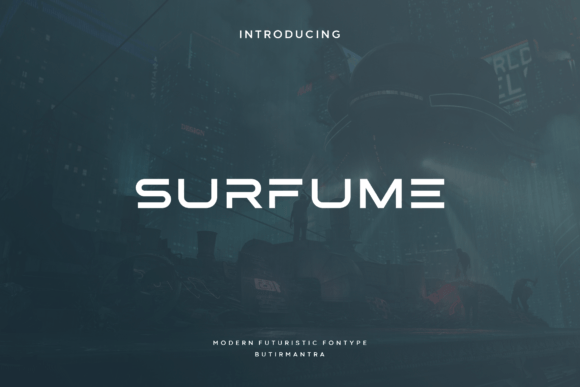
Introducing Surfume Font, a captivating and futuristic typeface that will transport your designs into the realm of science fiction. Crafted by the talented garismantra, this sans serif gem is the perfect choice for those seeking the best fonts for movie posters and beyond.
Surfume Font exudes a minimalistic charm that effortlessly blends simplicity with a modern and elegant aesthetic. Its sleek lines and clean edges create a contemporary feel that is guaranteed to captivate your audience. Whether you're working on a movie project, designing a poster, crafting a logo, or creating labels, Surfume Font is the versatile tool you need to bring your vision to life.
Immerse yourself in the world of science fiction as you harness the power of Surfume Font. With its futuristic allure, this typeface is reminiscent of the iconic typography found in beloved sci-fi films and acclaimed novels. Each letter is carefully crafted to evoke a sense of wonder and intrigue, making it the perfect choice to add a touch of otherworldly magic to your designs.
But Surfume Font isn't just visually stunning; it's also a font that speaks to the emotions of your audience. As they lay eyes upon your movie poster or logo, they will be transported to a world filled with excitement, anticipation, and curiosity. The captivating power of Surfume Font lies in its ability to evoke emotions and create a lasting impact on those who behold it.